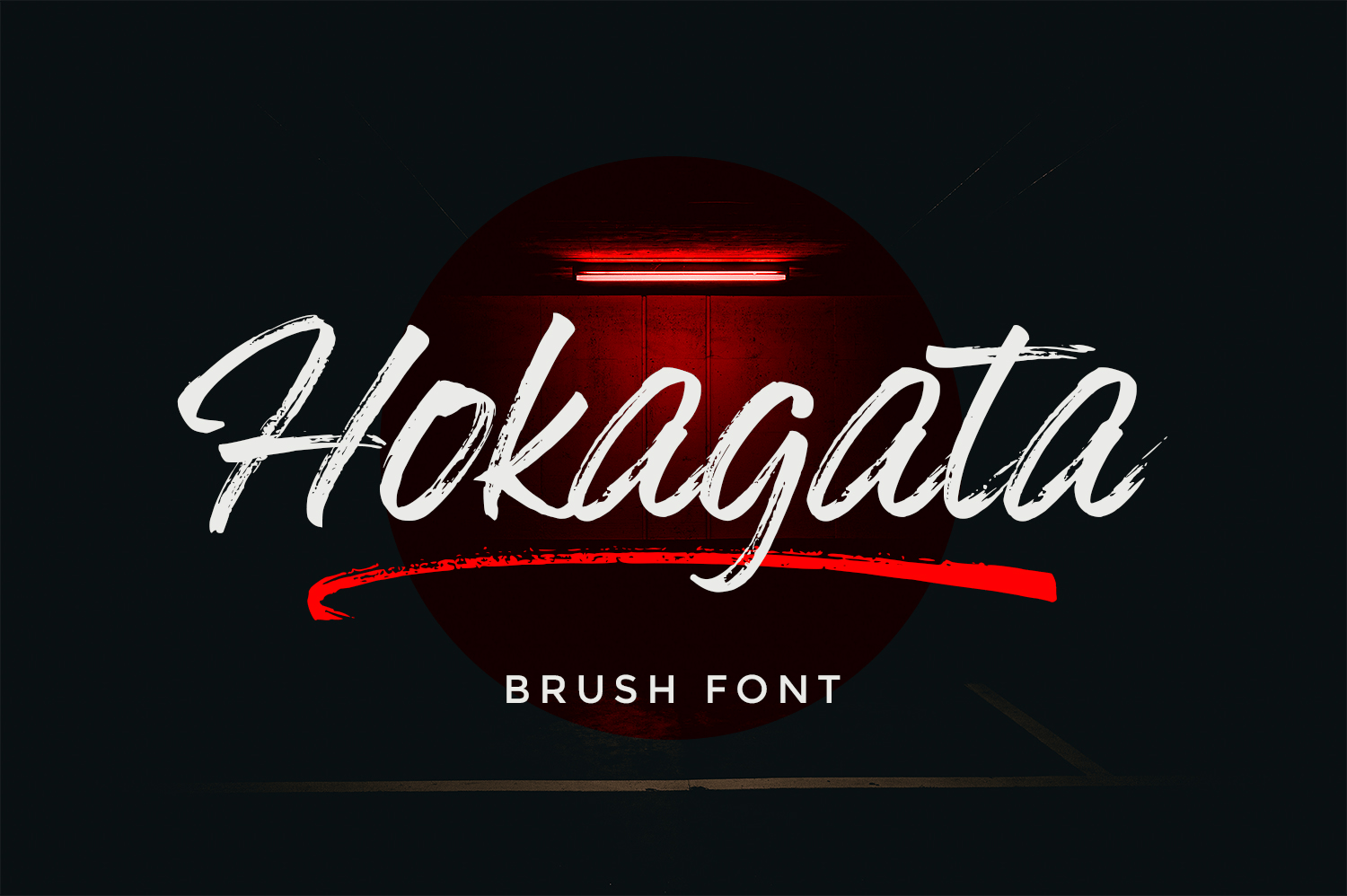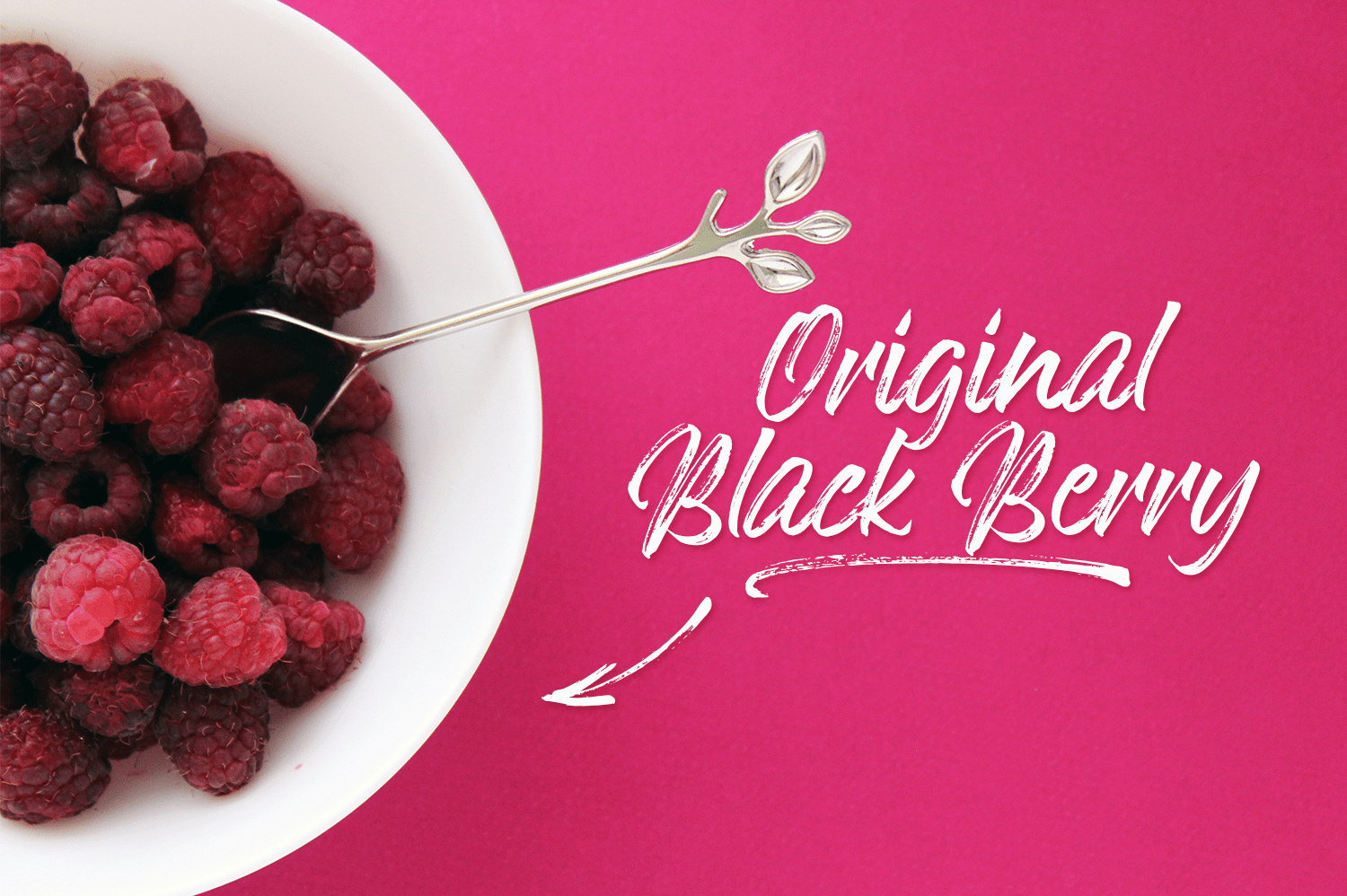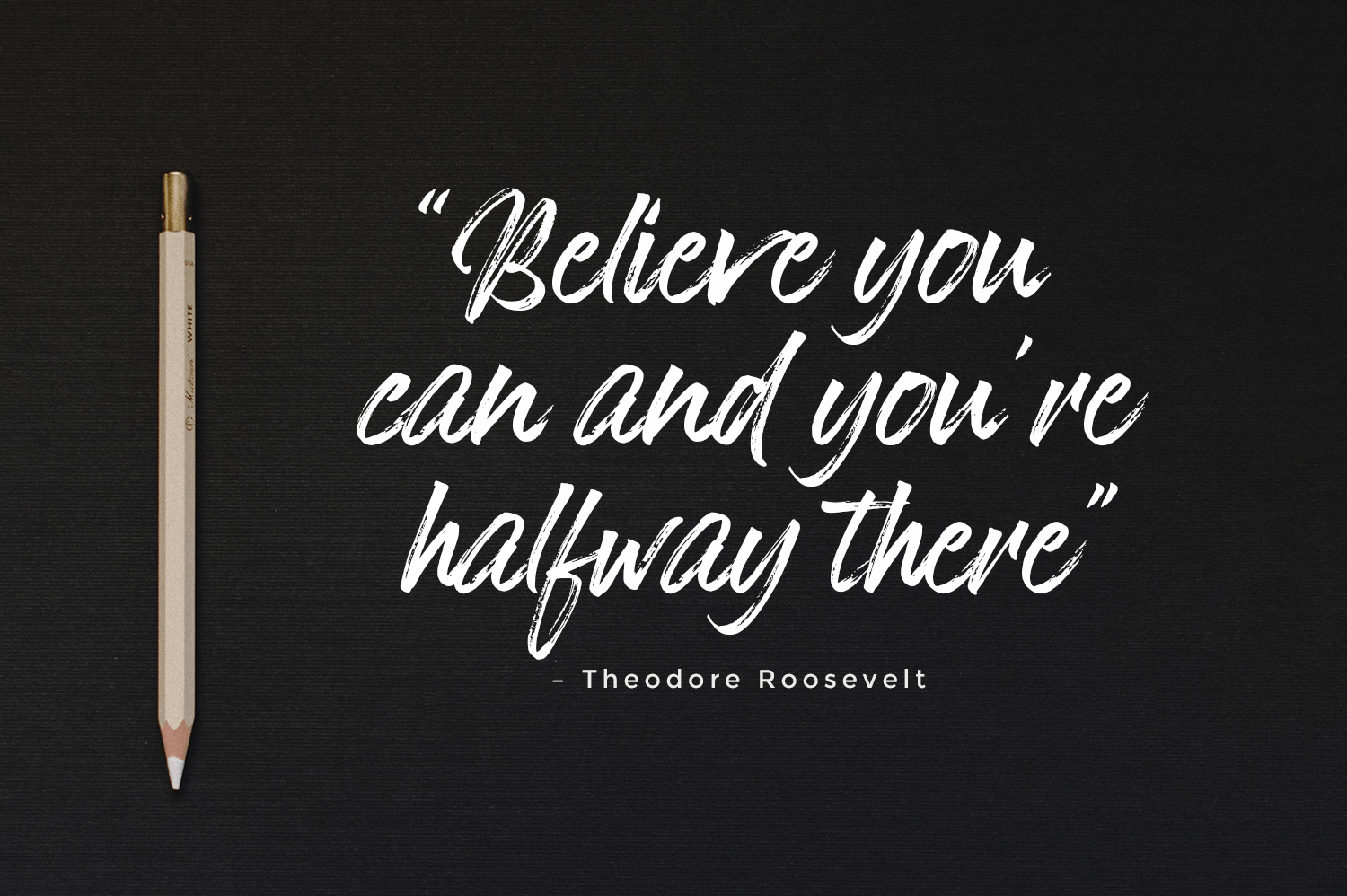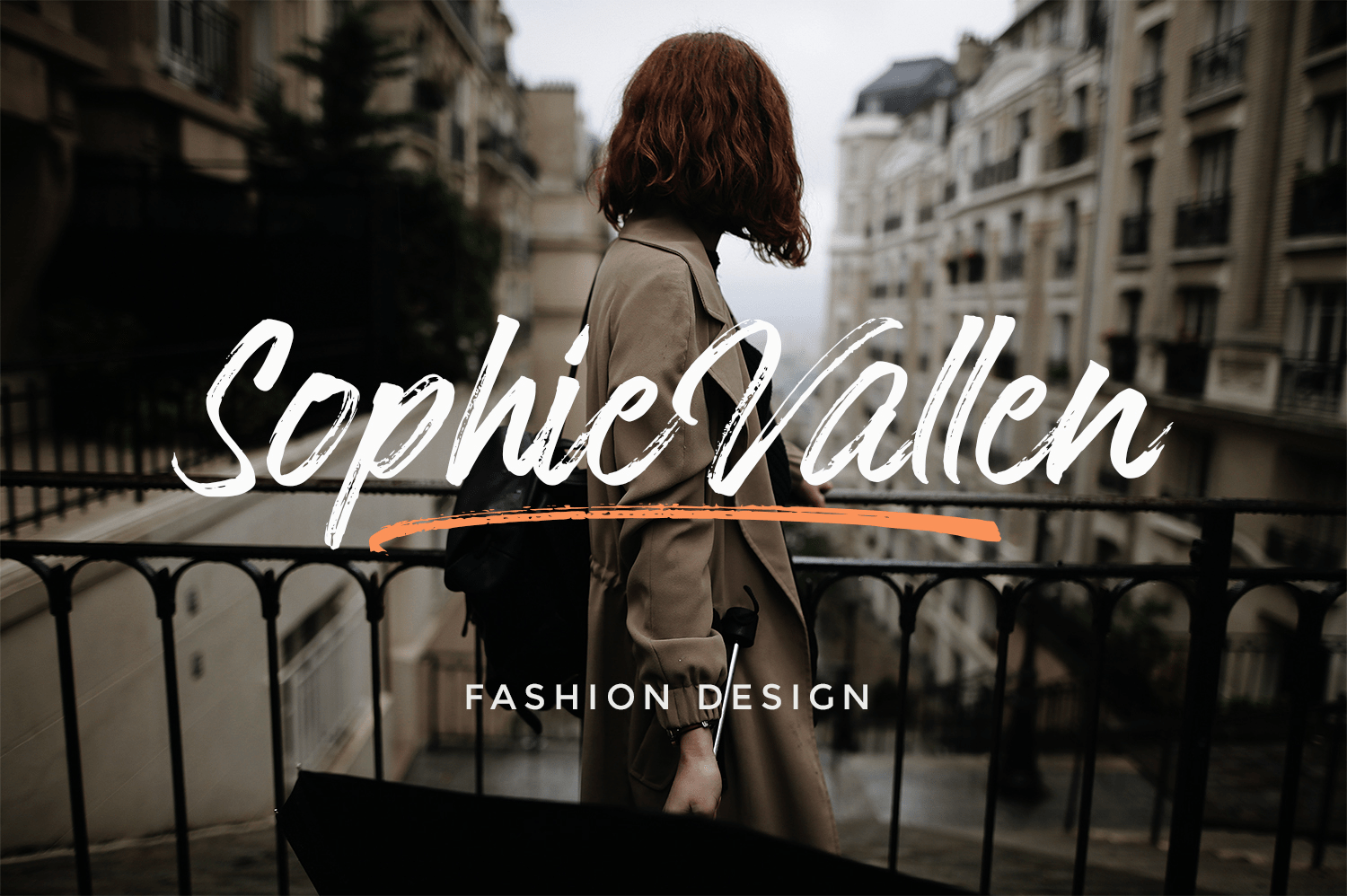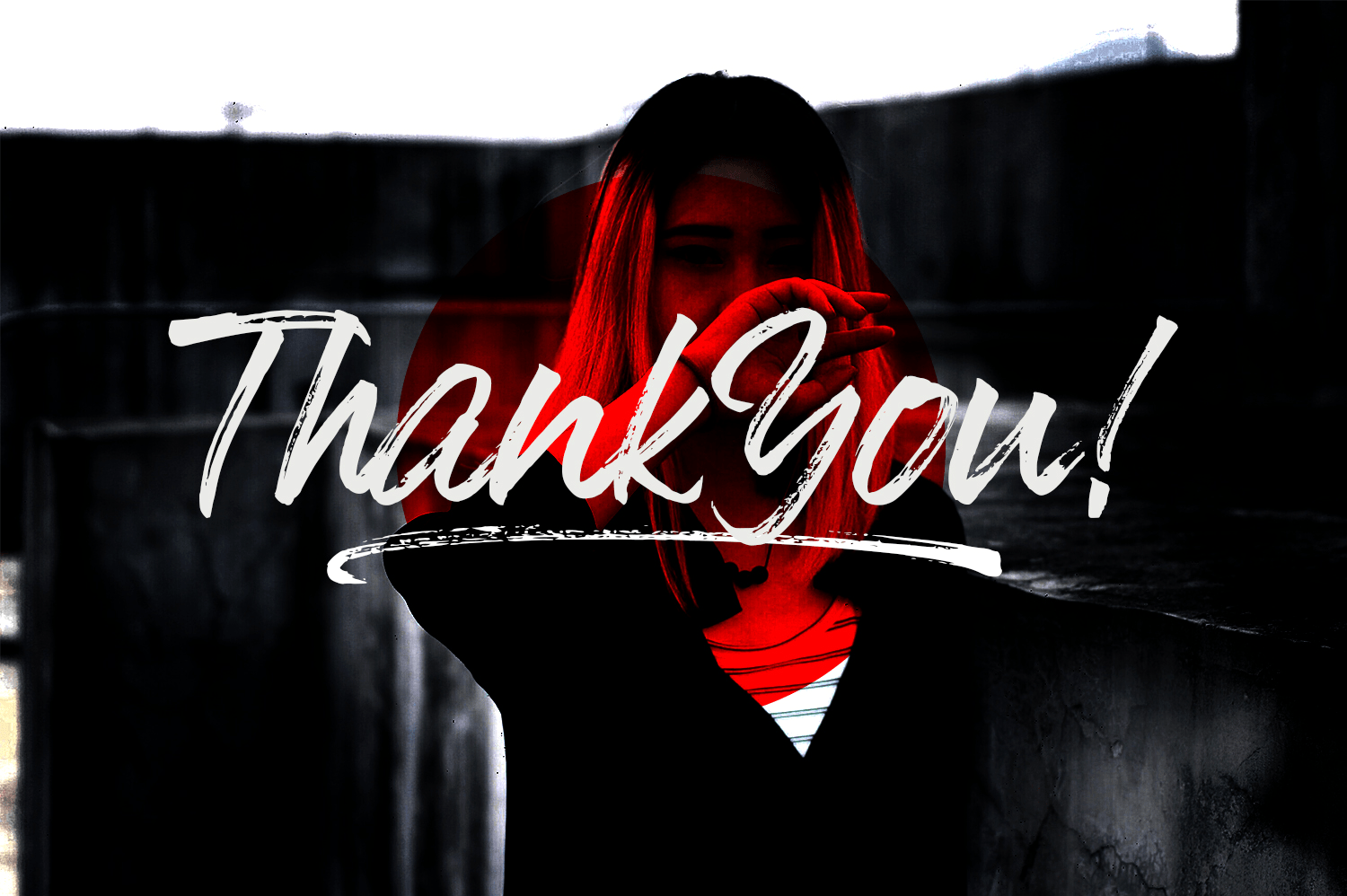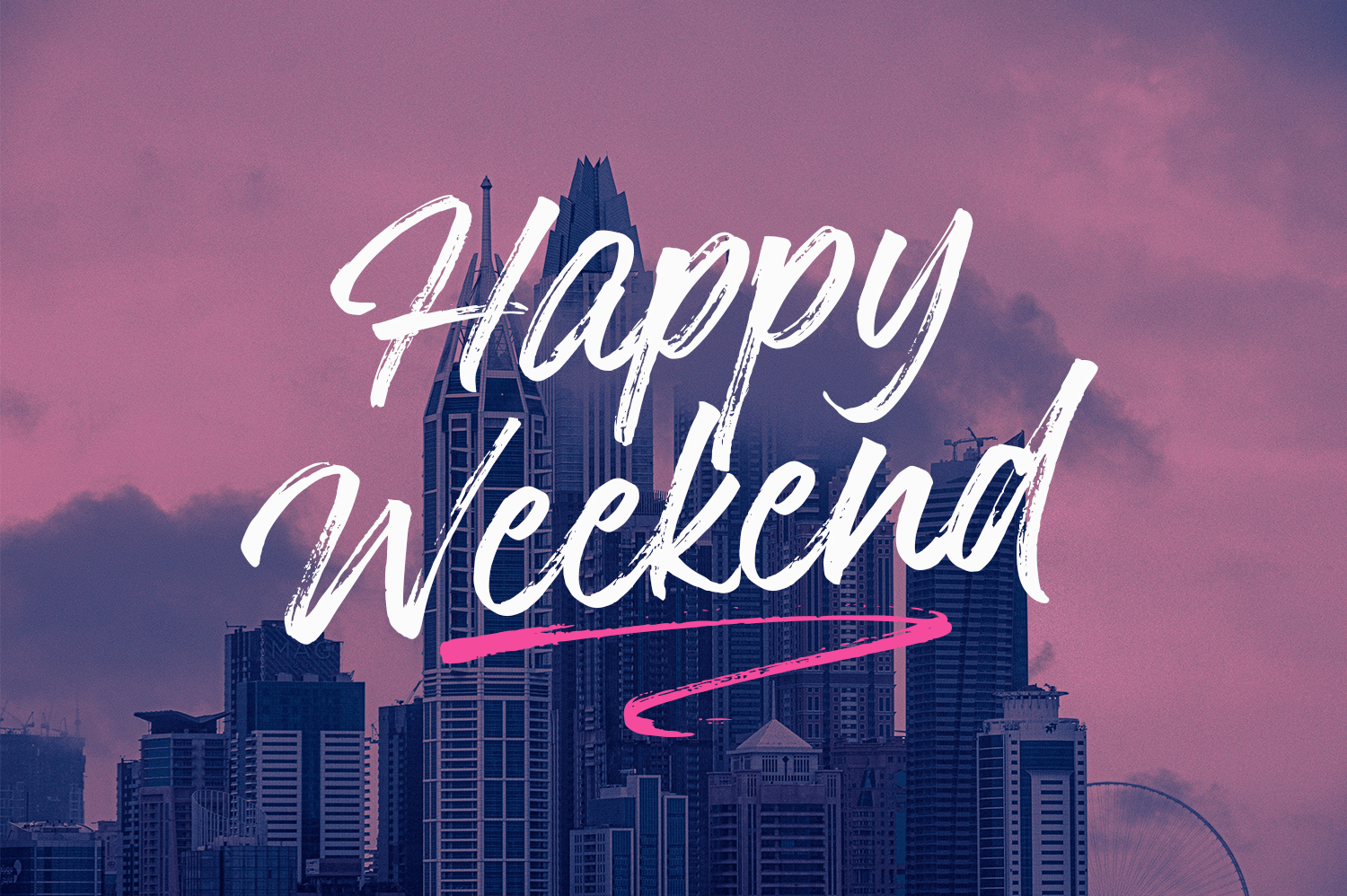
Hokagata Brush
Hokagata is a casually and quickly written brush script. Letters are made with brush pen on a paper. Then scanned and carefully drawn into vector format. There is just a right amount of texture left so it looks good in small and big sizes. These elements gives Hokagata its organic, authentic and laid-back characteristics.
1. Hokagata ? A handwritten script font containing upper & lowercase characters, numerals and a large range of punctuation.
2. Hokagata Swashes ? A set of 64 hand-drawn swashes, the perfect finishing touch to underline your Hokagata text. Simply install this as a separate font, select it from your font menu and type any A-U character to create a swash.